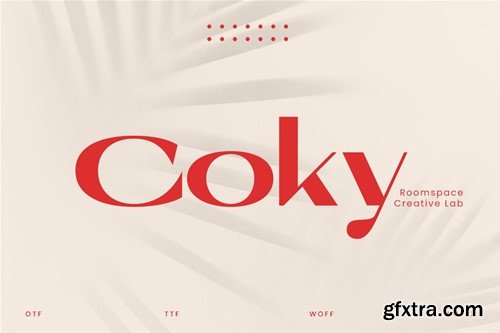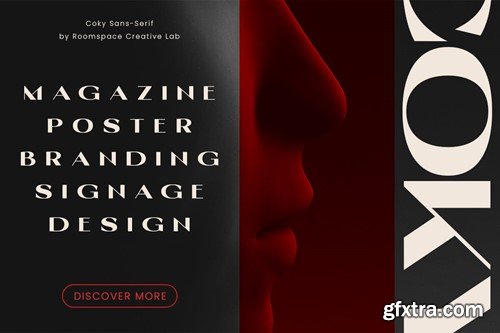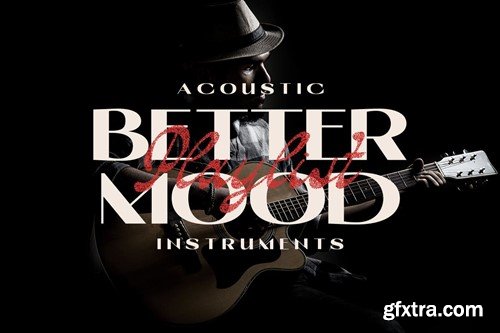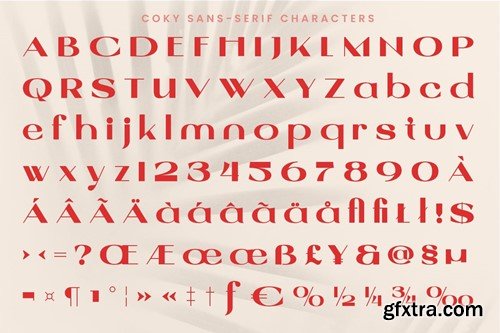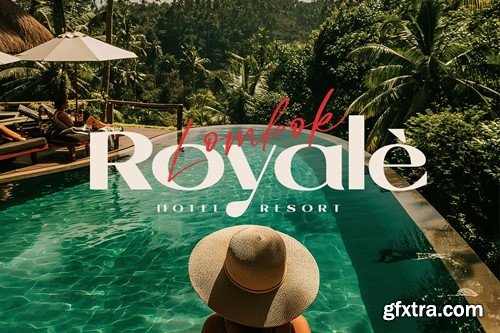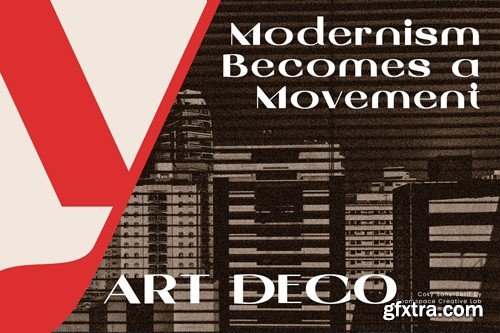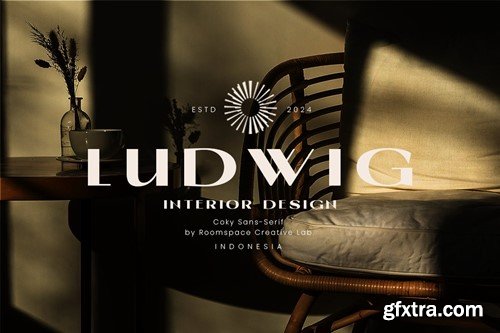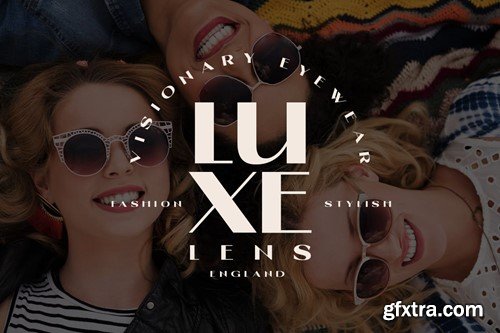
Coky, is a sophisticated and versatile serif typeface designed by Roomspace Creative Lab. Coky blends timeless elegance with modern aesthetics, making it an ideal choice for a wide range of creative projects. Its clean lines and subtle curves add a touch of refinement to any design, from branding and logos to invitations and editorial layouts. Coky is compatible with various design software and web applications, making it a flexible and reliable choice for designers. Elevate your designs with the understated charm of Coky. What did you get? OTF TTF and WOFF font versions Regular Uppercase & Lowercase Numbers & Punctuation Multilingual Support Works on PC & Mac Simple Installations